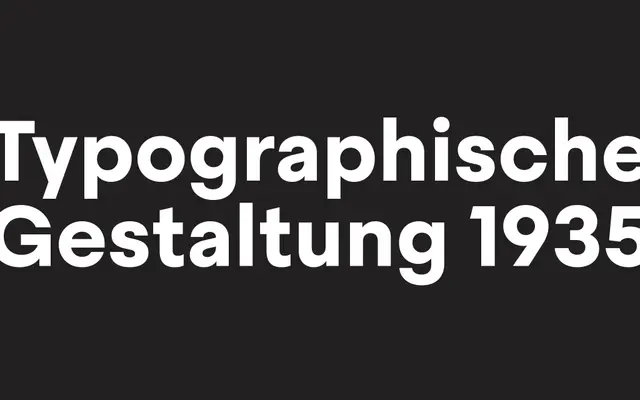
Steradian
A geometric sans with a double-story 'a', closed apertures and idiosyncratic capitals such as the G and Q, available in eight weights with matching italics and variable font versions.
Built on a geometric foundation, Steradian diverges from genre convention by keeping letter widths relatively consistent across weights, a consequence of developing proportions from the heavier cuts downward. The double-story 'a', closed apertures and distinctive capitals give the family a quiet character that lifts it above generic geometric offerings. The family ships as 18 static fonts plus variable Roman and Italic, and has found use across cultural institutions, brand identities and editorial projects.
Steradian is built on a geometric base with a double-story 'a', closed apertures and distinctive capitals, placing it firmly in the geometric sans tradition while retaining optical adjustments that distinguish it from pure geometry.